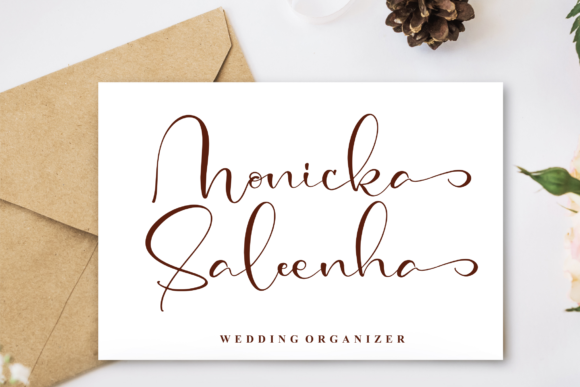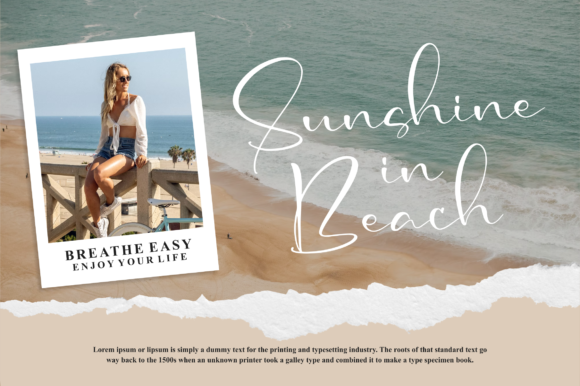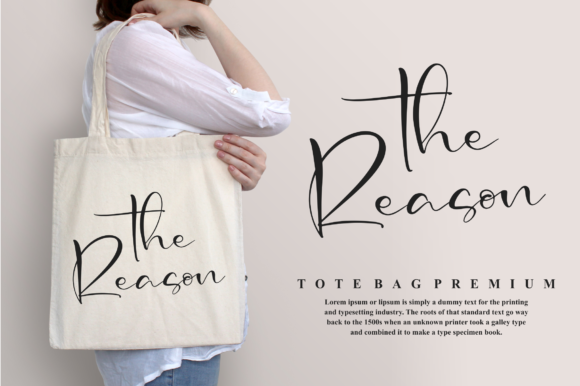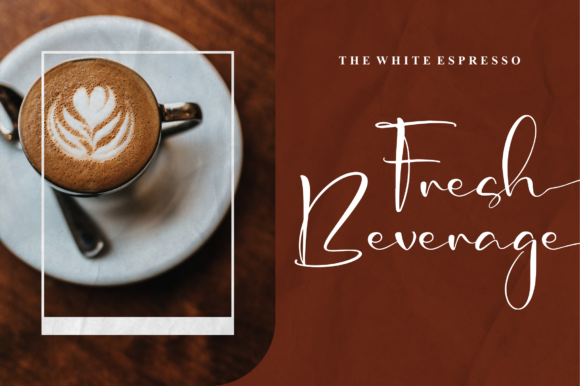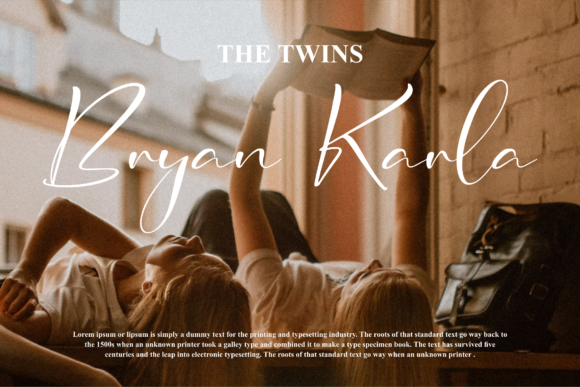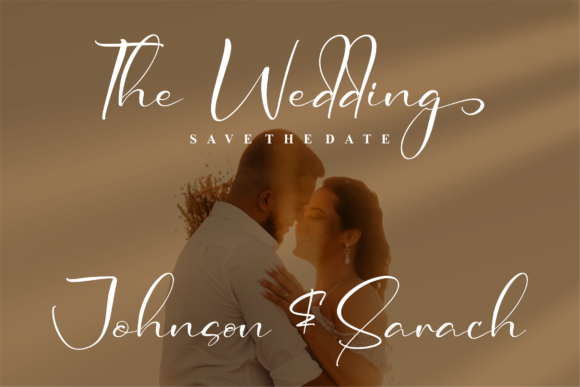
Introduction to Historya Angely Font
Have you ever found yourself in a creative jam, staring at a blank page, and desperately searching for the perfect font to bring your design to life? It’s a feeling we’ve all been there, and it’s exactly what inspired us to dive into the world of beautiful script fonts. Today, we’re excited to introduce you to the stunning Historya Angely Font, a high-quality design resource that’s sure to elevate any creative project.
Whether you’re working on a logo, branding project, or simply need a touch of elegance for your next invitation card, Historya Angely Font is the perfect companion. Its elegant script style and transparent background make it an ideal choice for designers looking to add a personal touch to their work.
Key Features of Historya Angely Font
• High-quality design resource for creative projects, offering a unique and elegant touch.
• Comes with a transparent background, making it easy to integrate into various design elements.
• Features a stunning 96-point size and 300 DPI resolution, making it perfect for large-scale designs and prints.
• Perfect for designers and artists working on creative projects, such as logos, typography, and graphics.
• Unique characteristics include intricate details, elegant curves, and a touch of sophistication, making it a standout design resource.
Honest Review: Historya Angely Font
I recently came across the Historya Angely Font, and I must say it’s been a great addition to my design resource library. The high quality of this font is evident in its elegant and refined design, making it perfect for any creative project that requires a touch of sophistication.
One of the standout features of the Historya Angely Font is its transparent background, which allows for seamless integration with any design. I’ve used it for a variety of projects, from brochures to social media graphics, and it always looks professional and polished.
Here are some things that work well about the Historya Angely Font:
• ✨ Elegant and refined design, perfect for creative projects
• ✨ High quality, making it a valuable addition to any design library
• ✨ Transparent background for seamless integration
• ⚠️ Limited font weights and styles, may not be suitable for projects requiring a wide range of options
• ⚠️ Not suitable for projects requiring a bold, attention-grabbing font
Common Use Cases for Historya Angely Font
Historya Angely Font is perfect for a wide range of creative projects, including: logos, business cards, brochures, presentations, and more. Its versatility and high-quality design make it an excellent choice for designers of all levels.